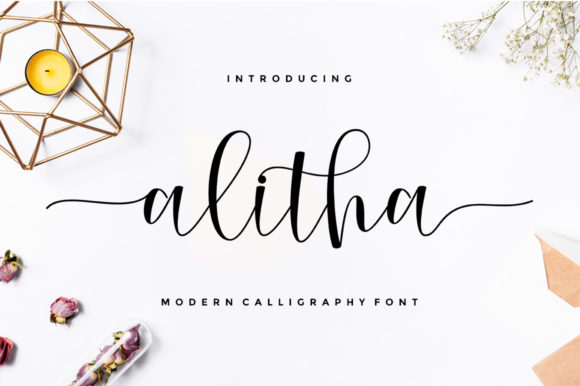
Introducing Alitha Script Font - The Epitome of Elegance and Playfulness for Your Designs
Embark on a typographic adventure with Alitha, a captivating script font brimming with modern charm and playful elegance. Whether you're crafting stunning logos that leave an unforgettable impression, designing product packaging that exudes sophistication, or creating enchanting wedding invitations that set the tone for a magical celebration, Alitha has got you covered.
Crafted by the talented hands of Selotypestudio, Alitha boasts a unique blend of contemporary aesthetics and timeless appeal that will elevate your designs to new heights. Its graceful curves and swooshes dance across the page, adding a touch of whimsy and delight to every letterform.
With Alitha as your typographic ally, you'll have the power to:
- Capture the essence of timeless elegance in your logos and brand designs.
- Create product packaging that speaks volumes about your commitment to style and quality.
- Design wedding invitations that embody the romance and joy of your special day.
- Unleash your creativity with posters, social media graphics, and websites that captivate and inspire.
But that's not all! Alitha is more than just a beautiful font; it's an investment in your brand's visual identity. Its versatile nature allows it to seamlessly adapt to a wide range of design styles, ensuring that your message is communicated with clarity and impact every time.
Don't settle for ordinary fonts that blend into the background. Choose Alitha, the script font that will make your designs stand out from the crowd and leave a lasting impression on your audience.